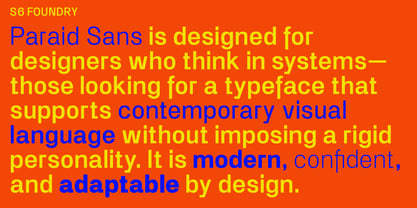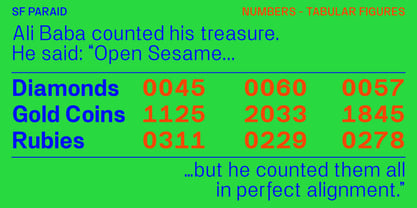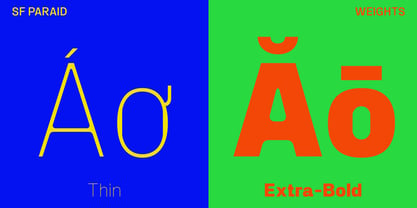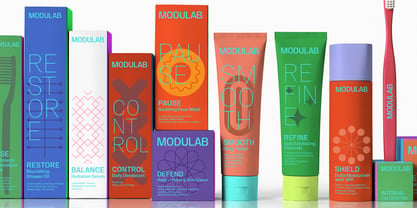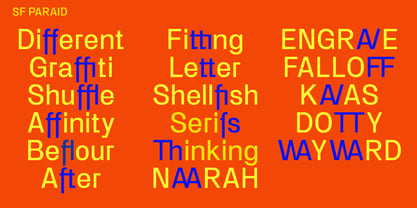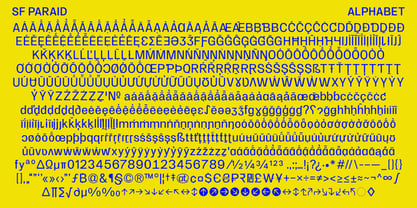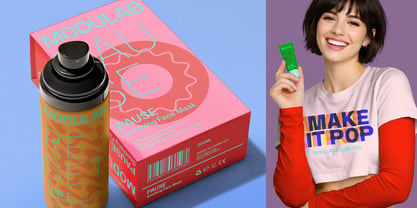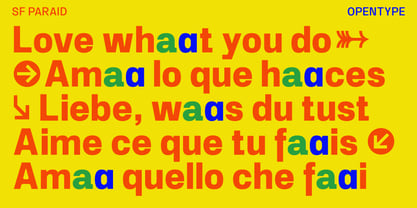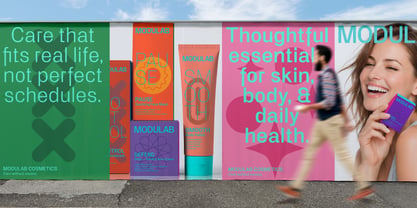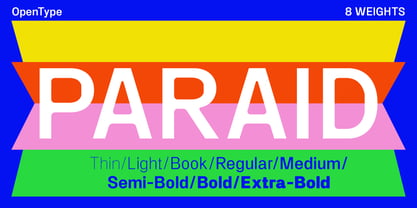
SF Paraid sans
von S6 Foundry
Die Schriftfamilie SF Paraid sans wurde von Paul Henry Robb entworfen und von S6 Foundry veröffentlicht. SF Paraid sans enthält 8 Stile und Familienpaketoptionen. Mehr über diese Familie
Paraid Sans is a contemporary sans-serif type family designed with a strong architectural logic and a distinctly human rhythm. It balances rational construction with subtle irregularities, creating a voice that feels controlled yet expressive, precise yet alive. The design is rooted in clarity and proportion, with open apertures, carefully modulated stroke contrast, and confident vertical stress. Letterforms are clean and assured, but never neutral: slight tensions in curves, terminals, and joins introduce character and warmth, allowing Paraid Sans to perform equally well in functional communication and emotionally driven branding contexts. Developed as a versatile system, Paraid Sans supports complex typographic hierarchies across print, digital, and environmental applications. Its structure ensures excellent legibility at text sizes, while its sculptural qualities give headlines a strong, contemporary presence. The family is suited to editorial design, visual identities, cultural institutions, corporate communication, and design-led brands seeking a modern but distinctive typographic voice. Paraid Sans is not a revival, nor a purely geometric construct. It is a pragmatic, forward-looking typeface that embraces precision without sterility—designed to work hard, scale confidently, and communicate with quiet authority.